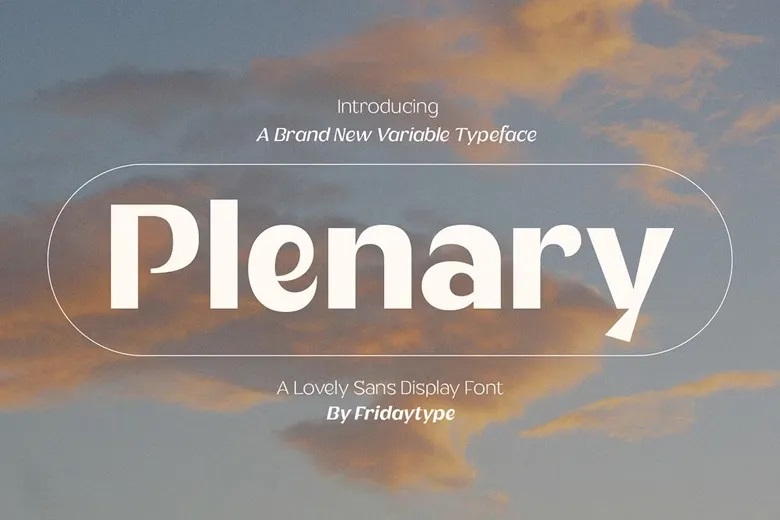
Plenary Font Family
Plenary Font
Plenary is a beautiful and soft sans-serif font that reflects the atmosphere of comfort and relaxation that will be ideal for logos in bakeries, cafes, and other establishments that require a cozy atmosphere. These fonts have straight sides and rounded edges making it appropriate for packaging, menus, and logos.
Blending a clean aesthetic with an element of warmth, Plenary beautifully pairs with quality bread, quality coffee, and areas for seating.
Plenary Sans Serif Font Family